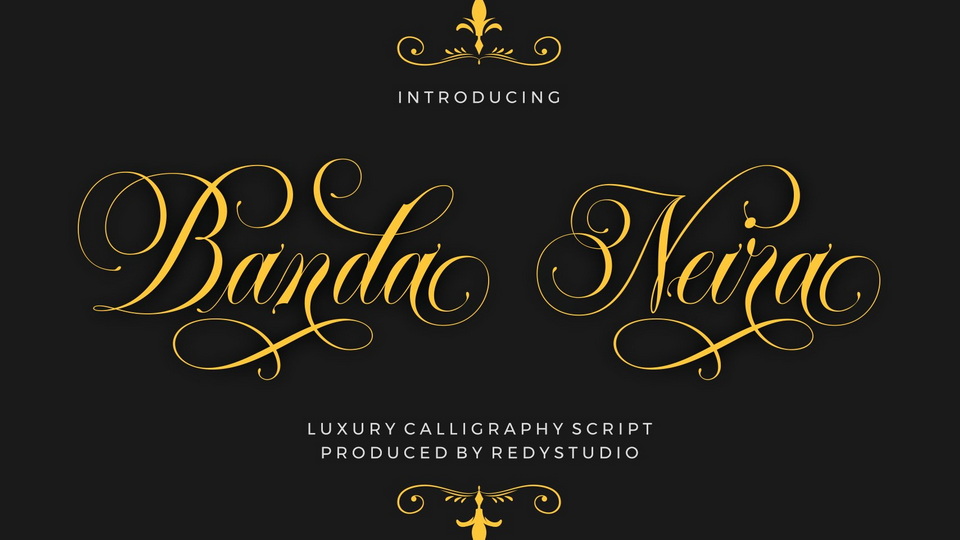
Download Banda Neira Script font, an elegant calligraphy typeface. It’s a feminine, luxurious, and modern typeface. Banda Neira Script is inspired by the movements formed by calligraphy.
Designer: Redy Studio